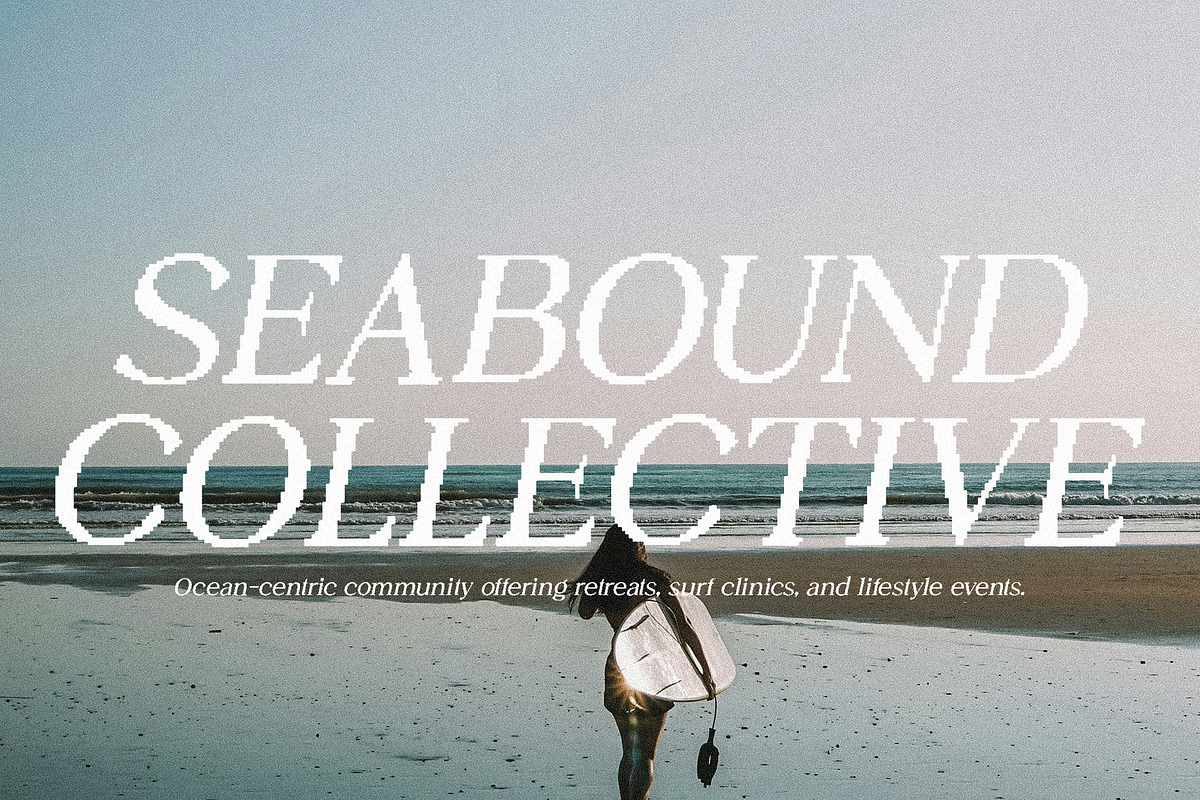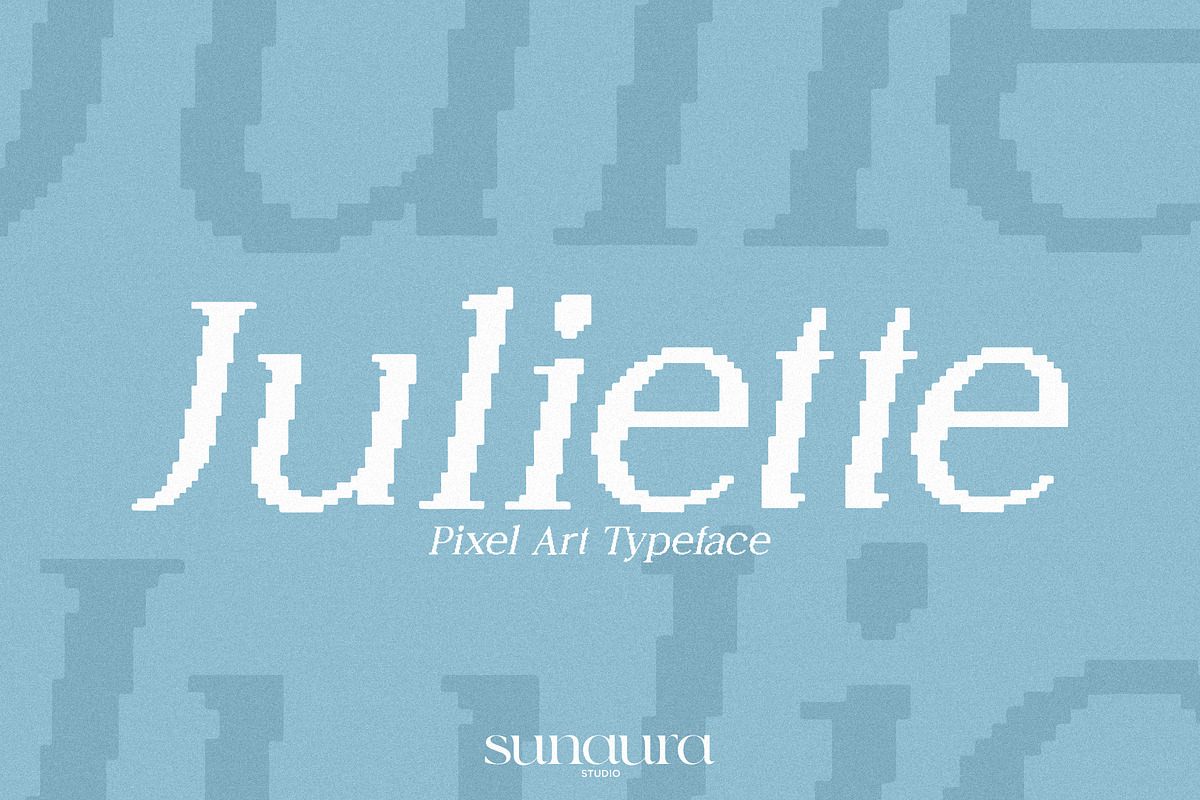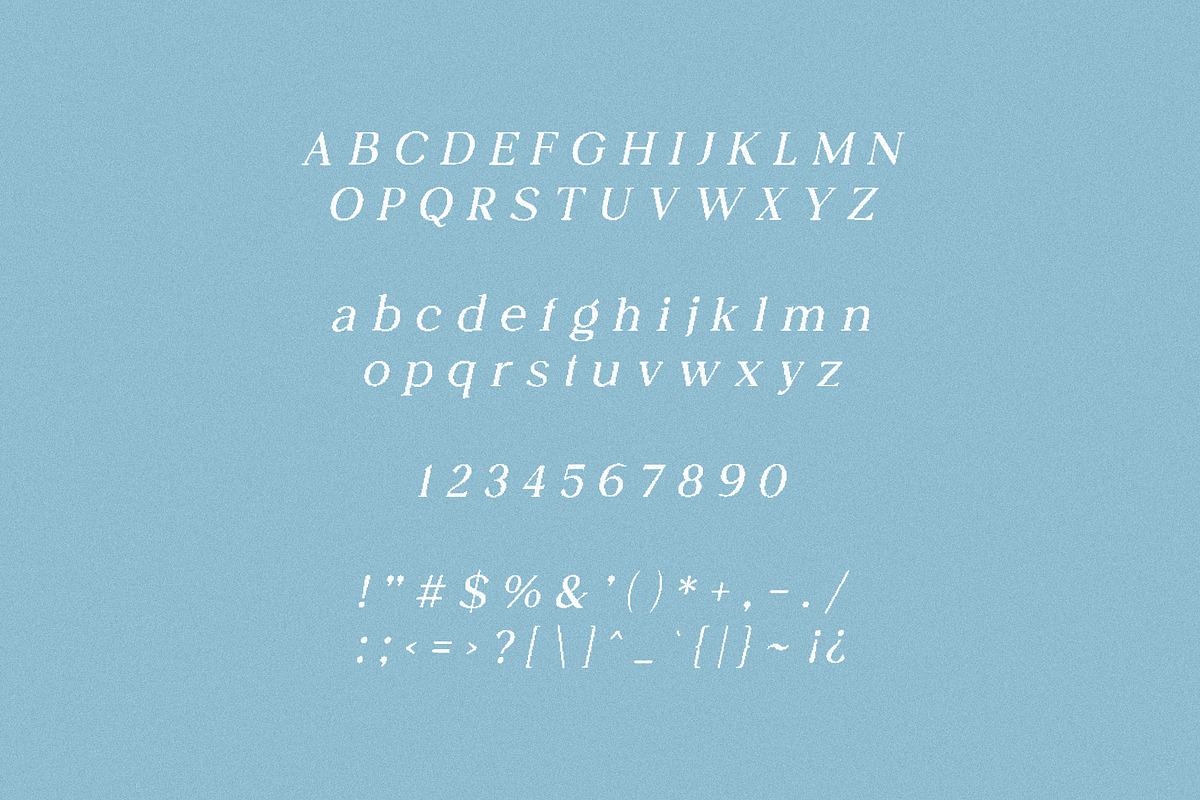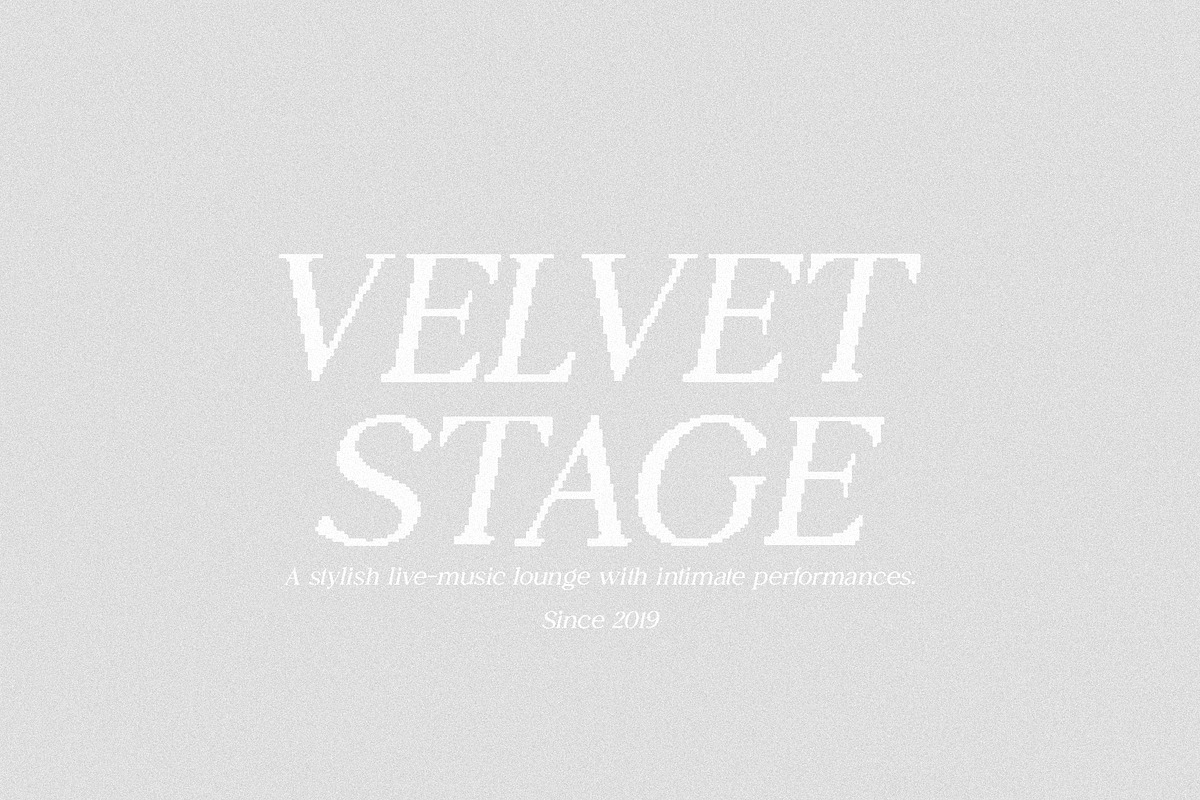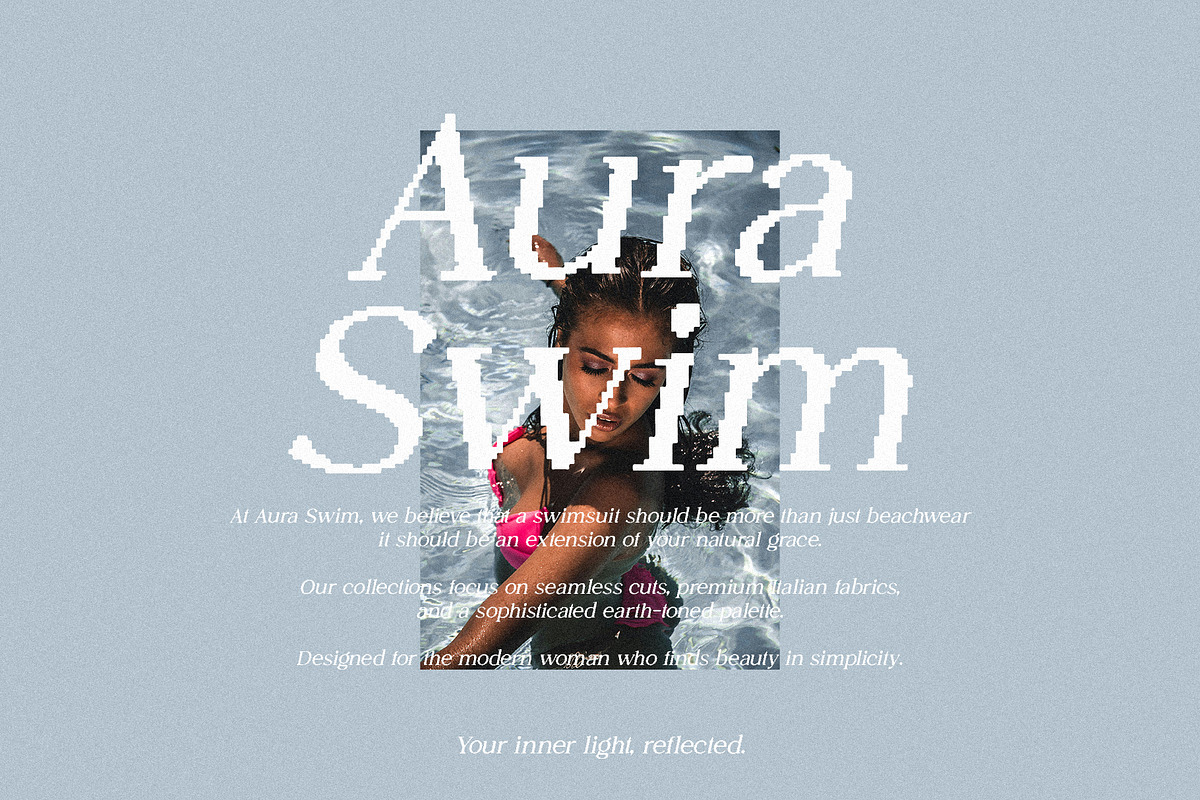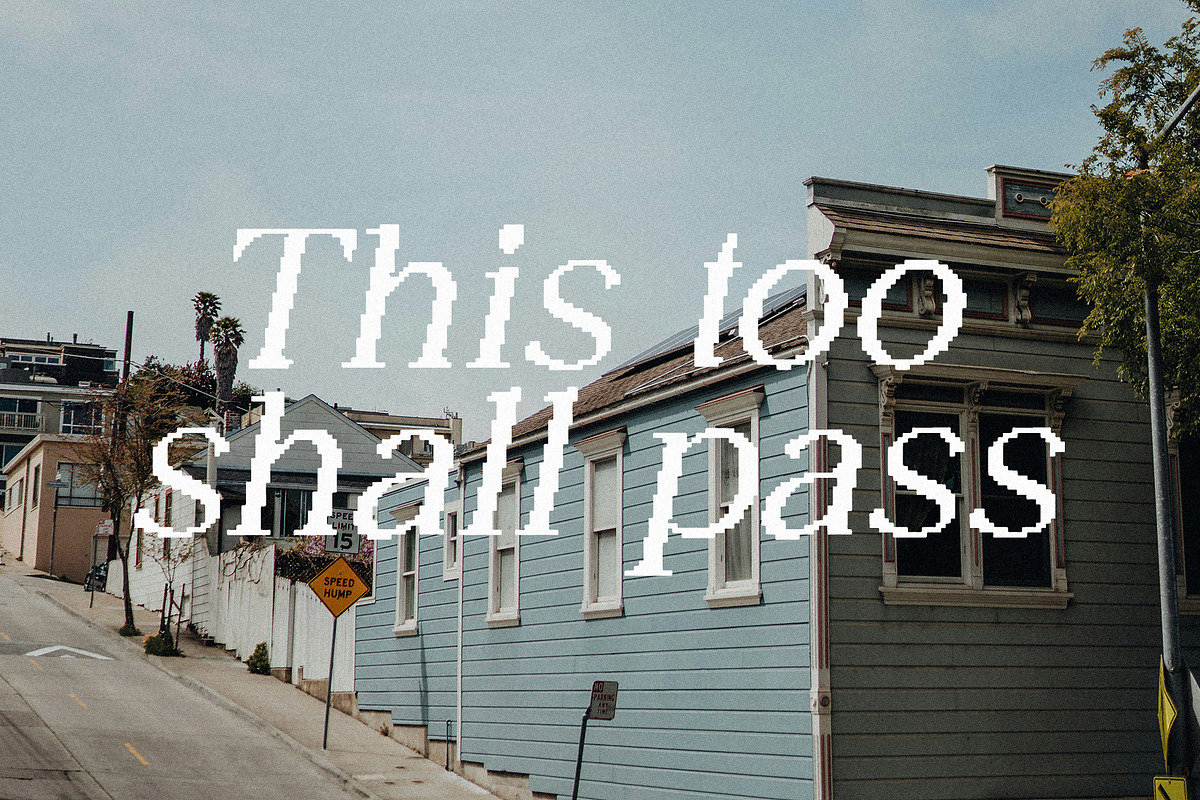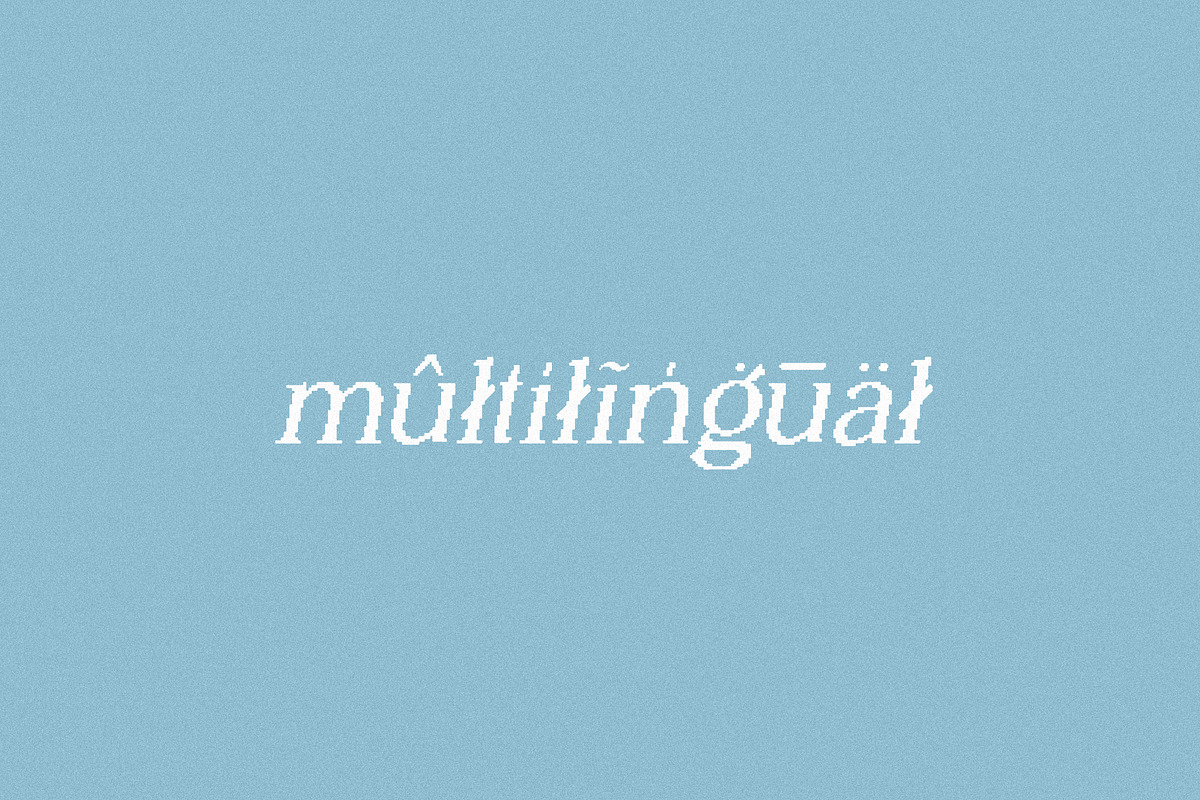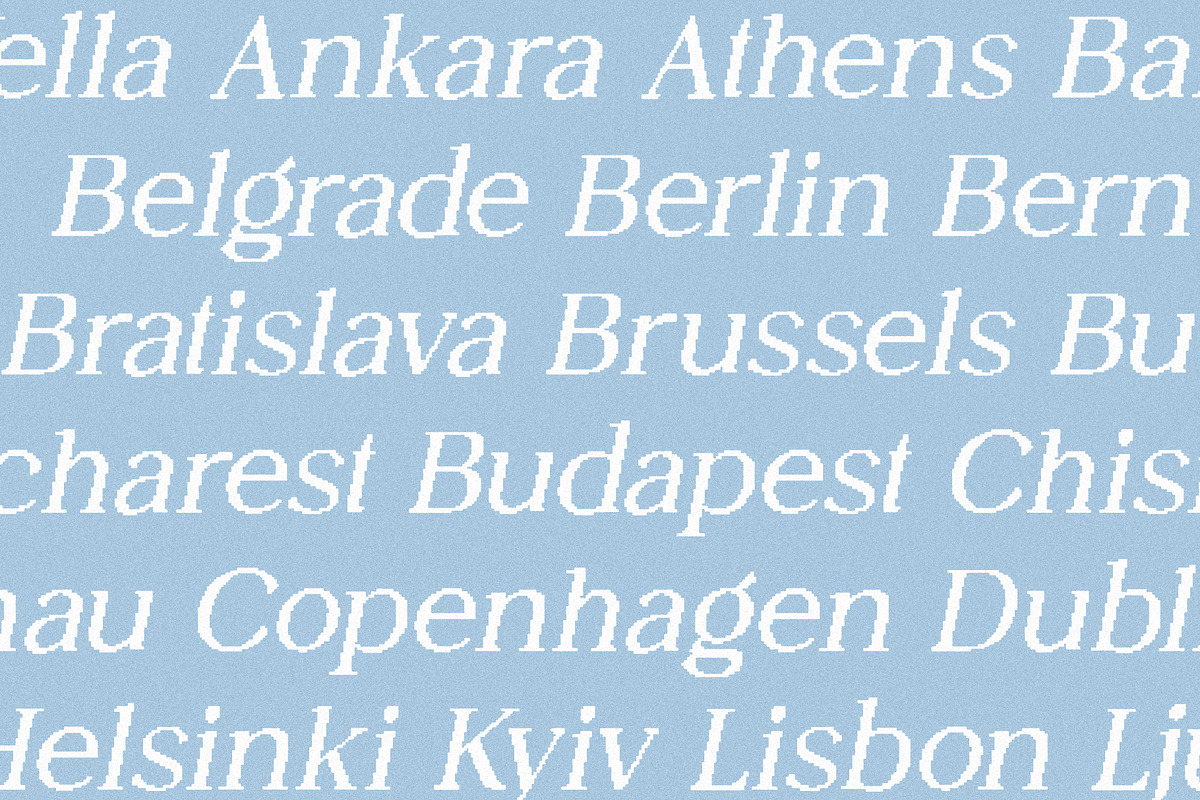
Juliette Pixel Art Serif
Juliette Pixel Art Serif is a modern yet nostalgic typeface that blends elegant serif structure with charming pixel art aesthetics. Designed to bring a refined retro feel to your work, this font is perfect for logos, t-shirt designs, magazine layouts, website headers, and more. Juliette Pixel Art Serif features multilingual support, over 250+ glyphs, and includes uppercase and lowercase letters, numbers, and a full set of symbols. Its unique fusion of classic sophistication and pixel precision makes it a versatile choice for both contemporary and vintage-inspired designs.